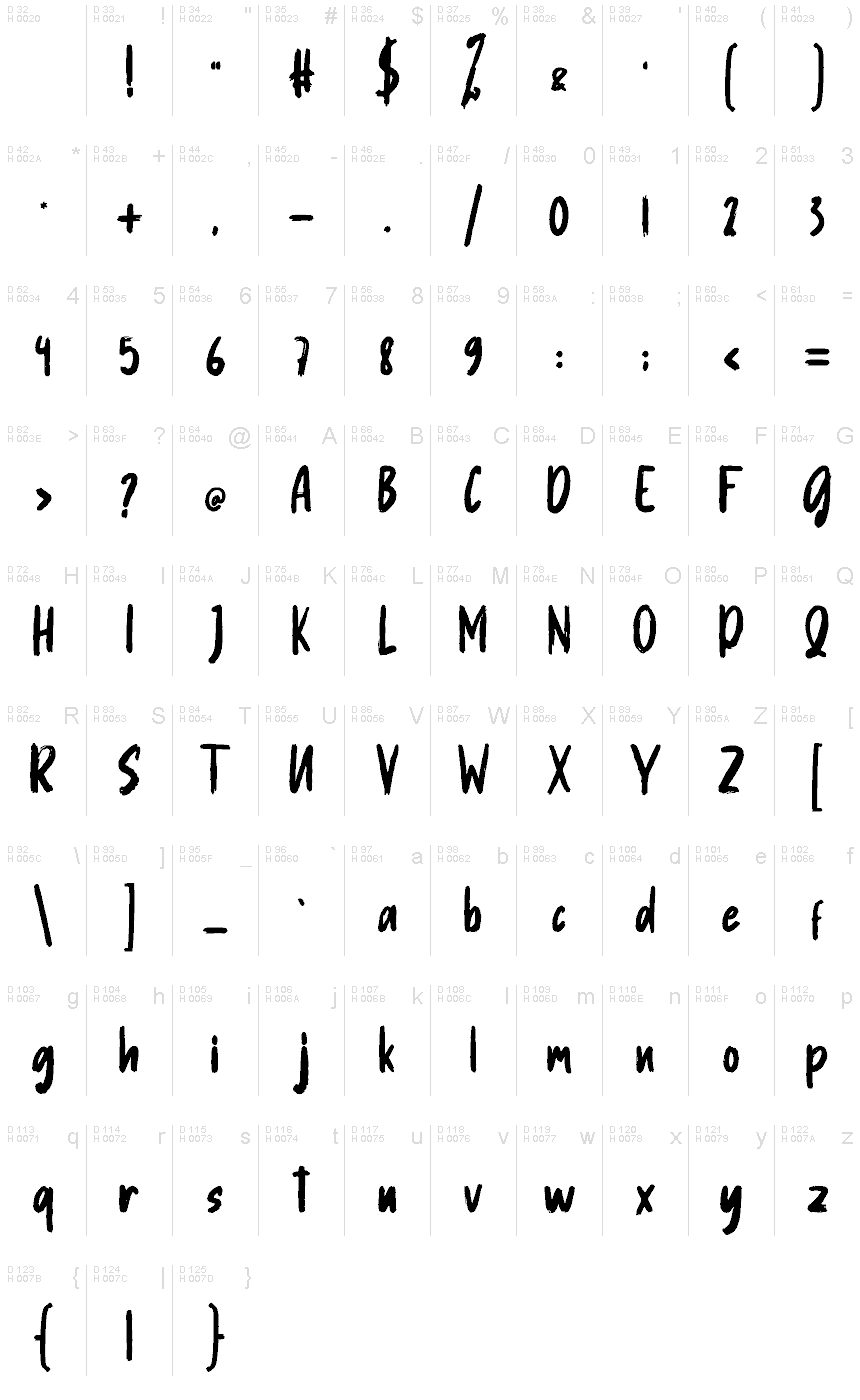
Danker
Danker font, designed by Skiiller Studio, is a condensed brush font whose artistic flair shines through every letter. Its uneven hand-drawn appearance and irregular stroke width give it a natural vibe while being modern at the same time. Danker feels casual and easily adaptable to different designs for which you require an expressive typographic element.
Use this free brush font for branding, packaging design, T-shirts, mugs, and other print items. Also consider it for social media post titles as Pinterest pin covers or Instagram posts stories. Designers can use this tool in designing apps and websites as well where recommendatory typography might be required.